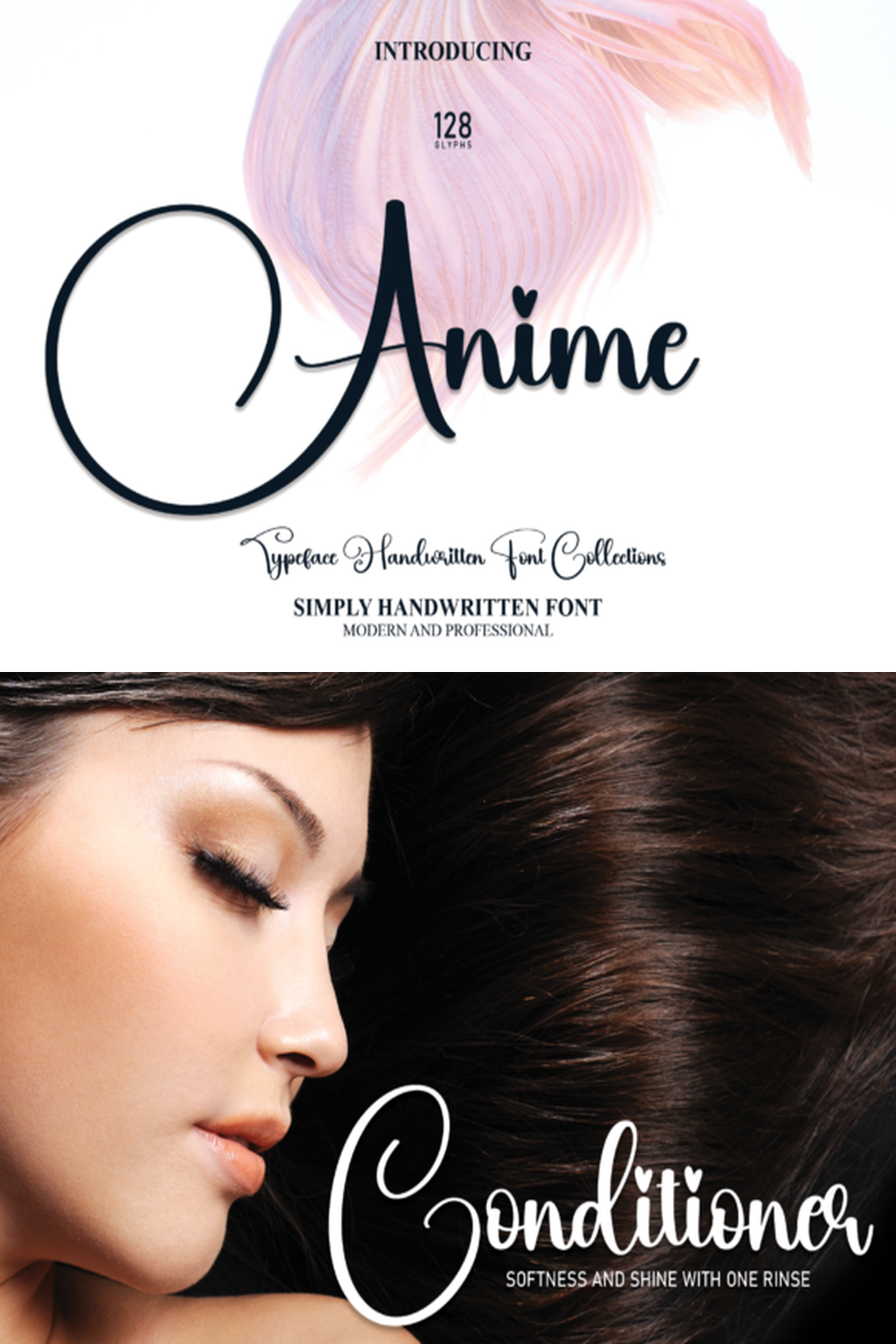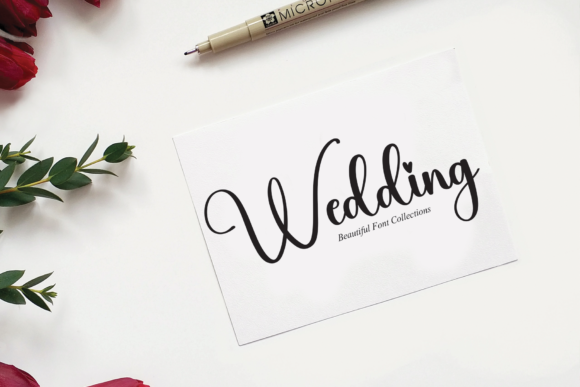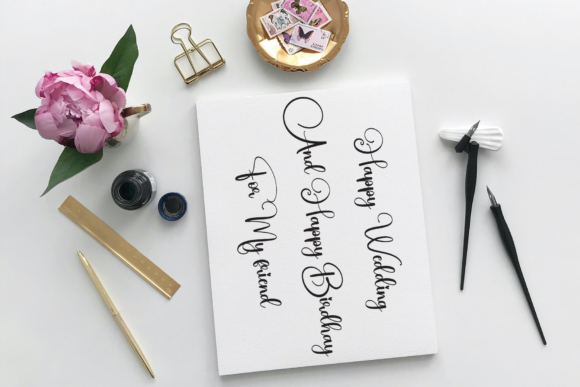
About the Anime Font
Presenting Anime Font, a unique and stylish typeface that will make your work stand out. Anime is a stylish handwritten font full of curves, swashes, lines, and more. The balance in every word is truly extraordinary!